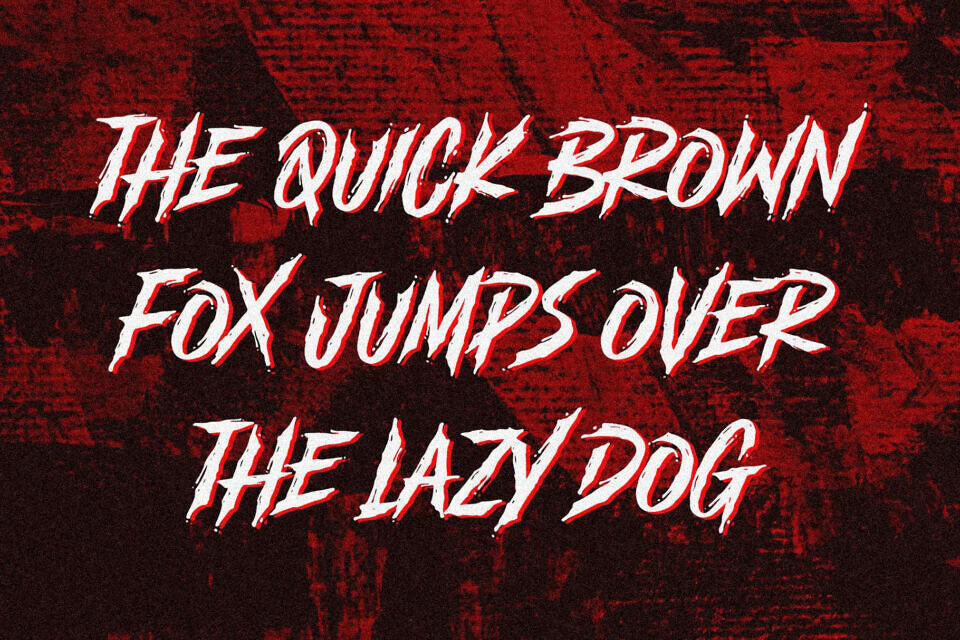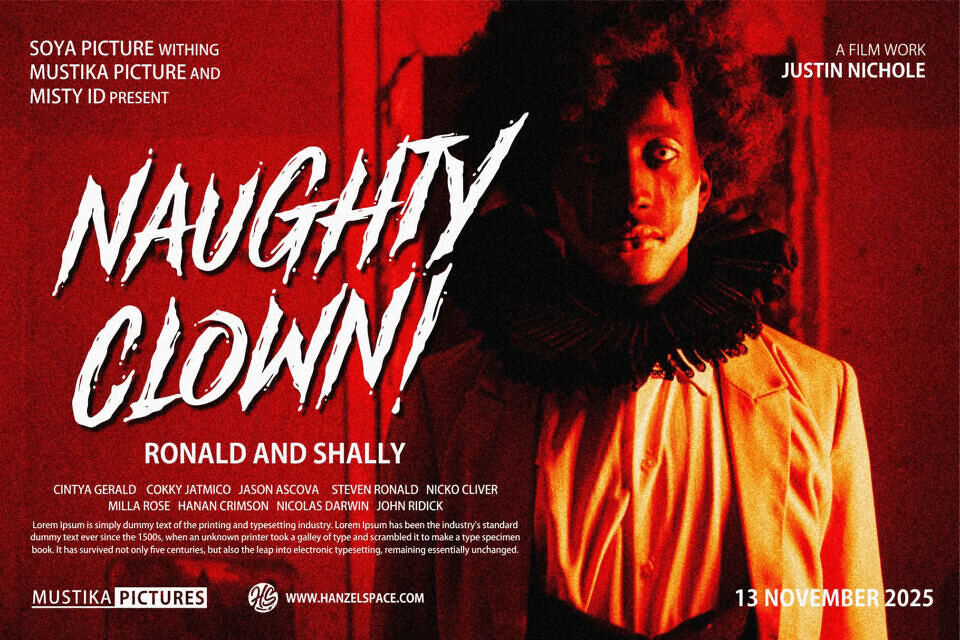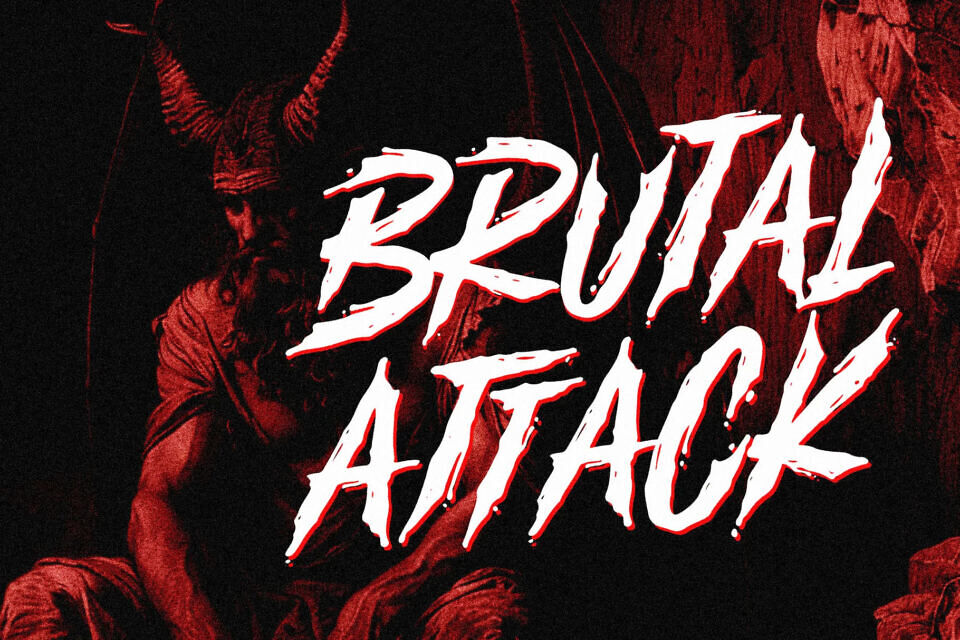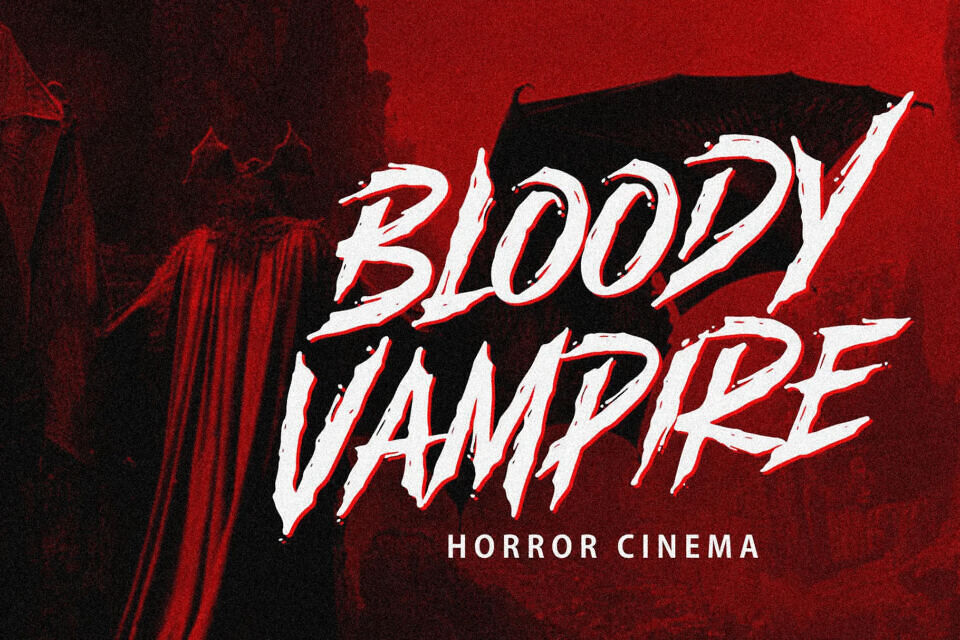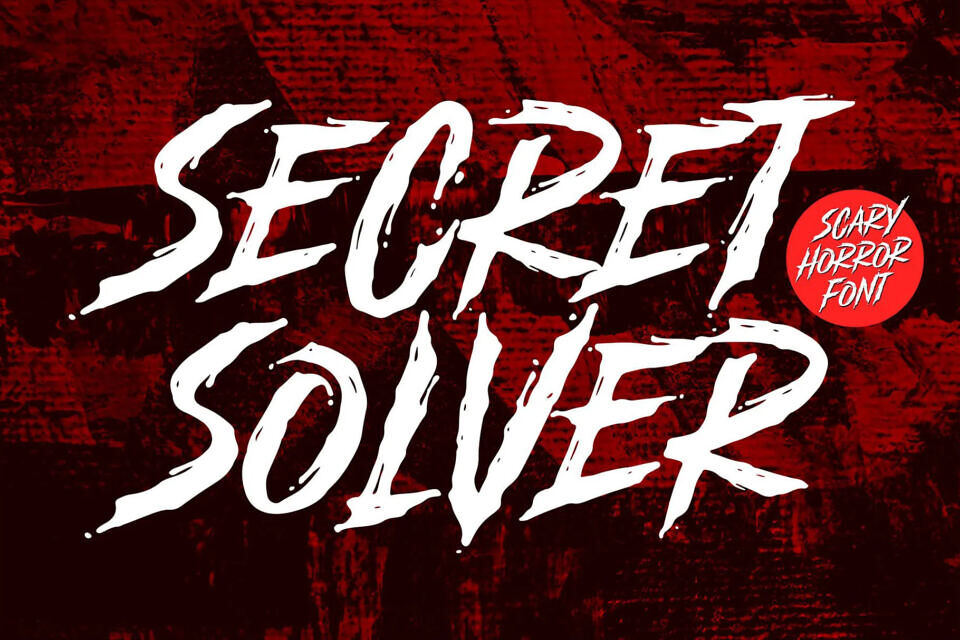
Secret Solver Font
Add a chilling vibe to your designs with Secret Solver, a font perfect for horror-themed projects. Ideal for logos, title cards, and more, it’s great for movie posters, video games, and apparel. Use Secret Solver to give your horror projects a spooky touch, making it a versatile font solution for various designs.